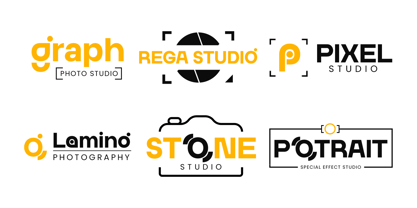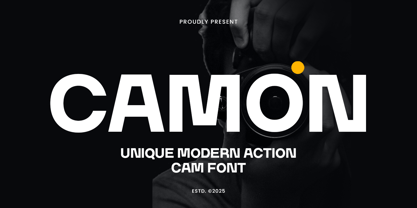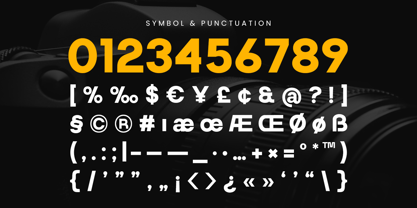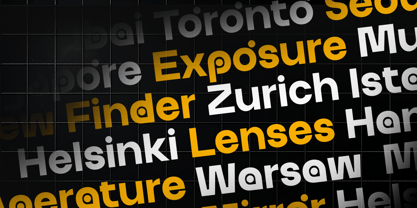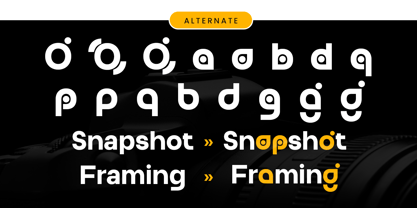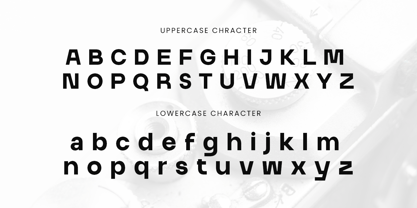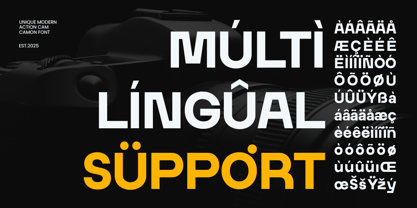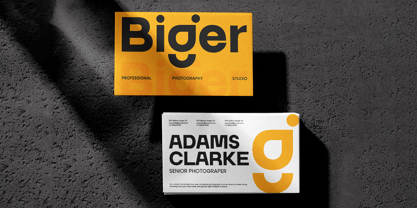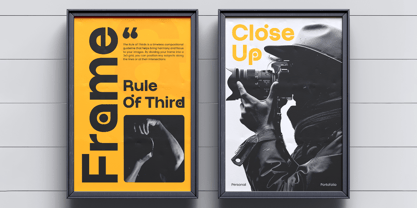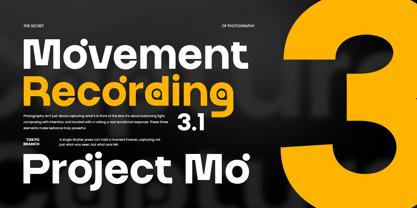
Camon
CAMON is a unique camera photography logo font designed for photographers, creatives, and visual artists who want to make a bold statement. With its sleek lines, modern shapes, and subtle nods to the world of photography, CAMON is the perfect font for any photography logo or brand identity.
Whether you're designing a logo for a photography studio, a creative agency, or a personal brand, CAMON offers a stylish, minimalist design that enhances the visual appeal of your brand. The unique character shapes and subtle camera-inspired details ensure your logo will stand out, leaving a lasting impression on your clients and audience.
CAMON – Unique Camera Photography Logo Font Features
• Unique camera-inspired letterforms
• Ideal for photography studios, creative agencies, and branding
• Includes uppercase, lowercase, numerals, and punctuation
• Clean, minimalist, and modern design
• OpenType features for advanced typographic styling
Create the perfect visual identity for your photography brand with CAMON – a unique font for the creative professional. 📸✨